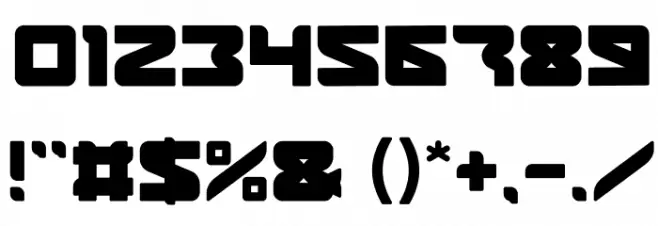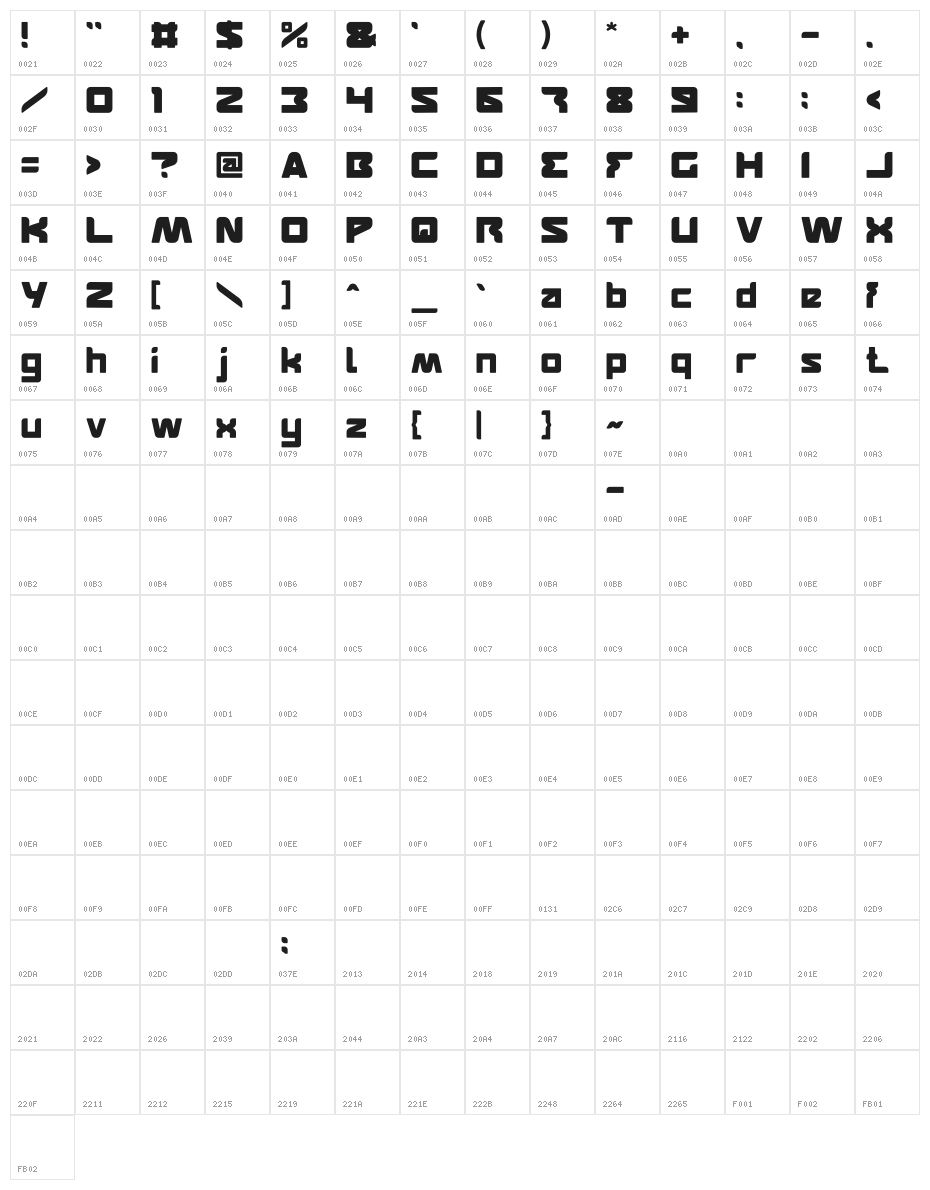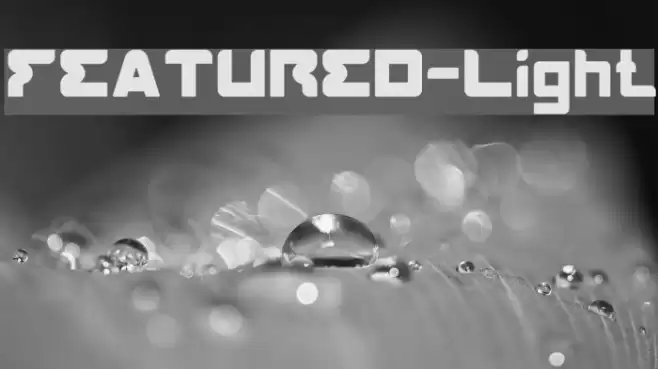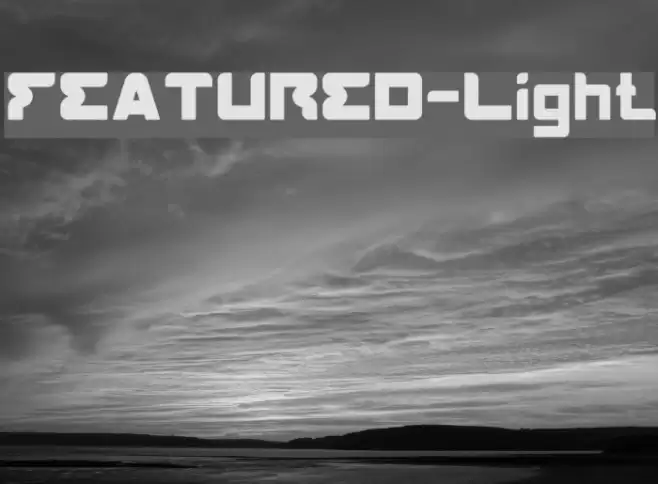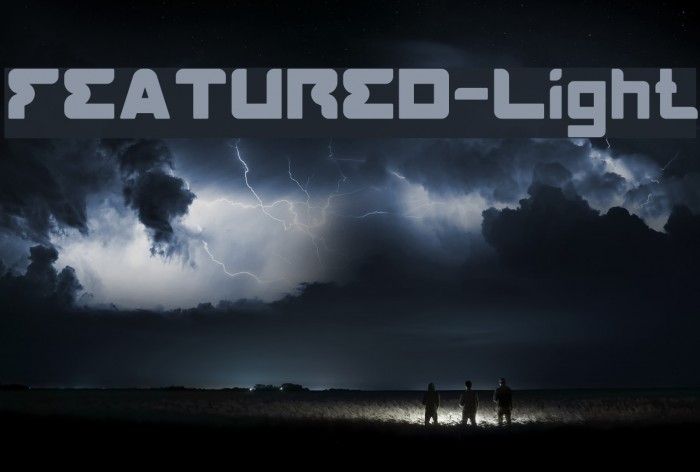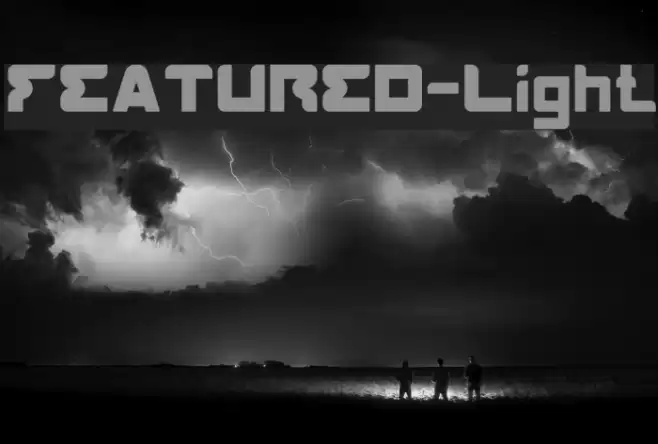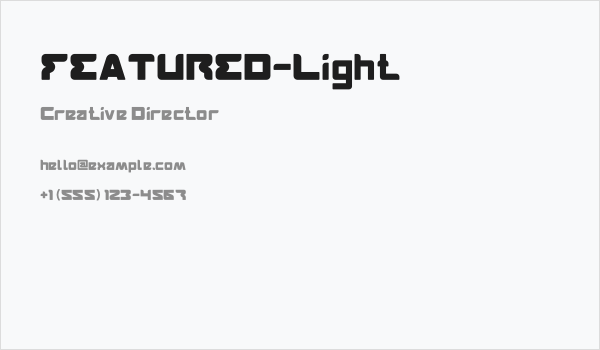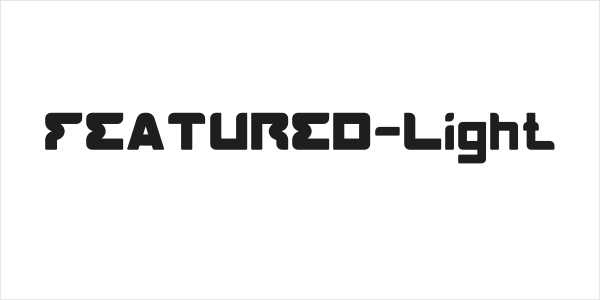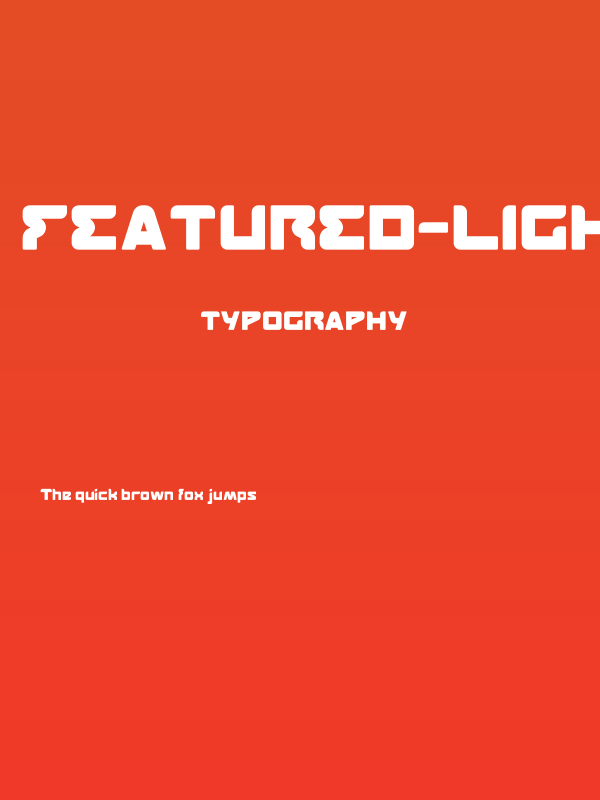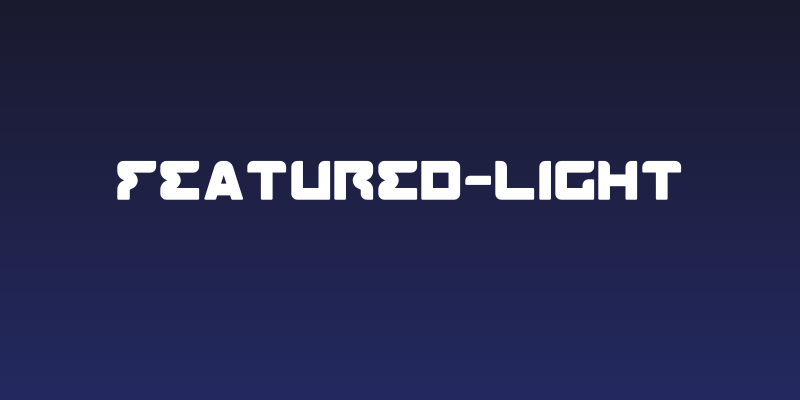
FEATURED-Light Font
FEATURED-Light Description
This font features a bold and geometric design with a futuristic flair. The characters are constructed with thick, uniform strokes, creating a strong and impactful appearance. The angular shapes and sharp edges give it a modern and edgy look, making it stand out in any design. The uppercase and lowercase letters maintain a consistent style, while the numbers and special characters complement the overall aesthetic. Its unique style is suitable for projects that require a bold statement.